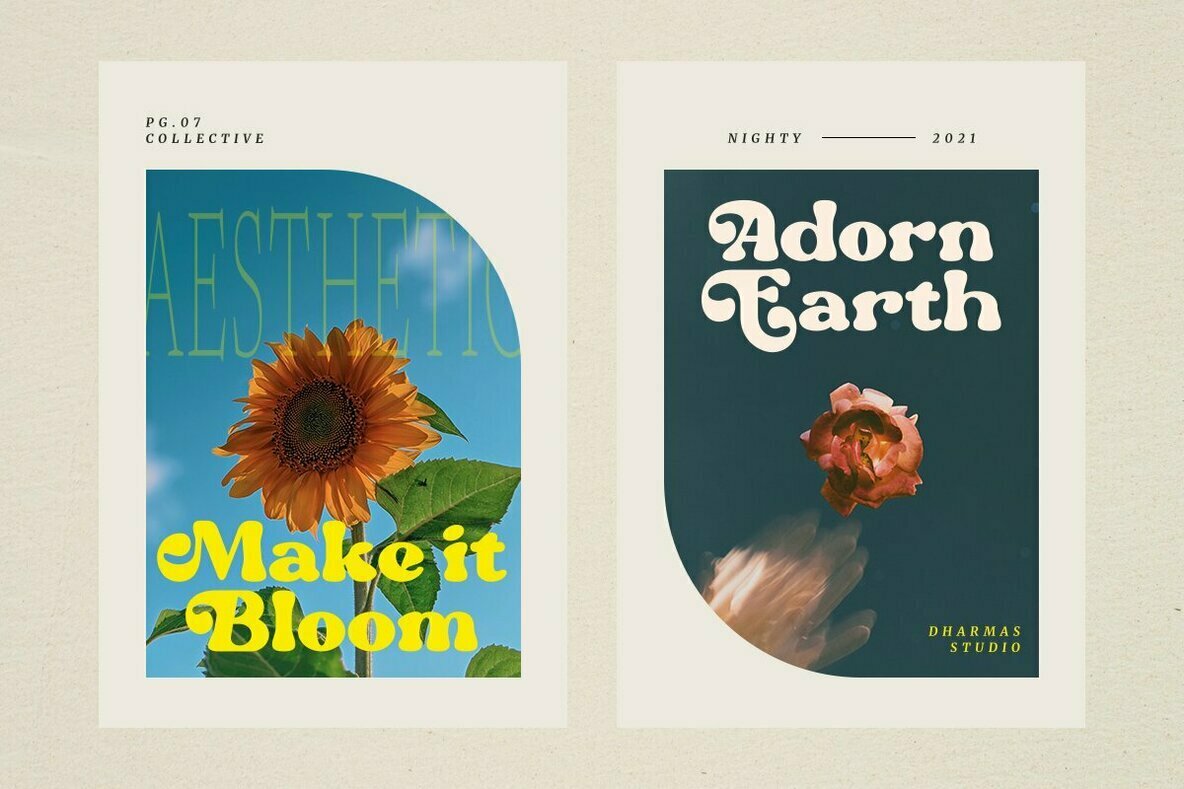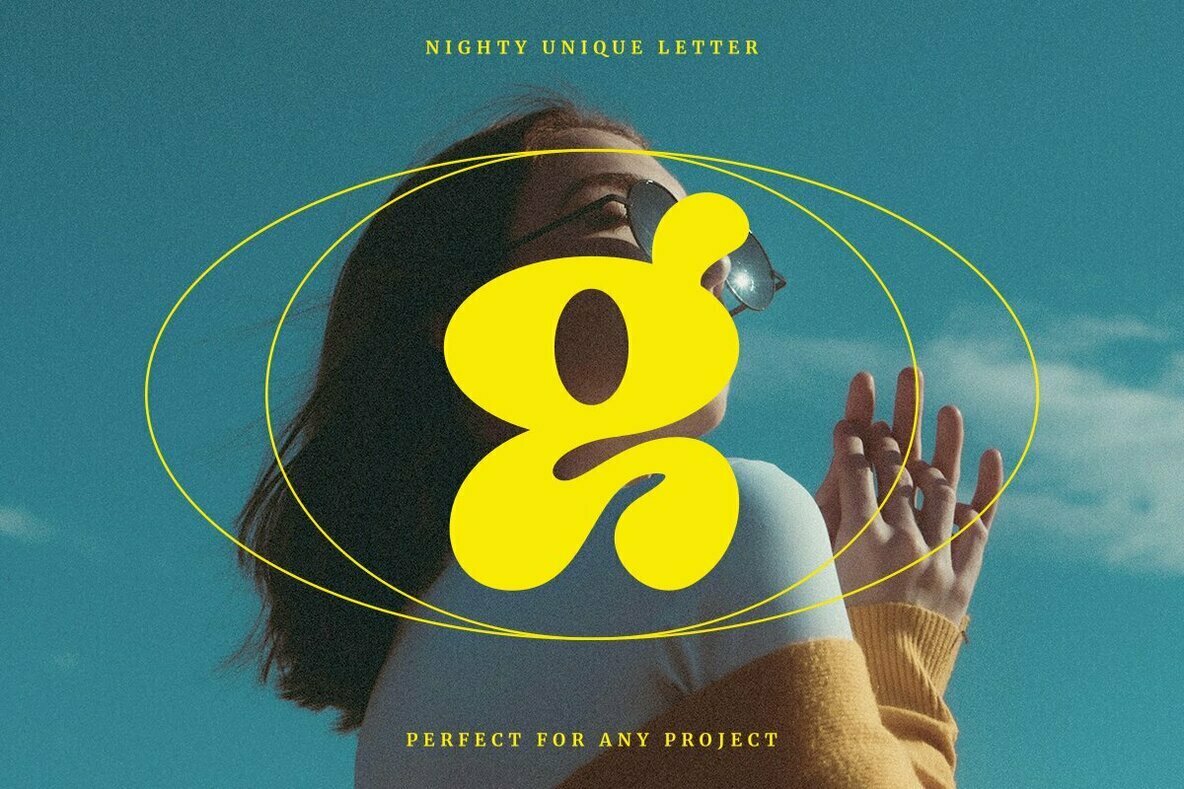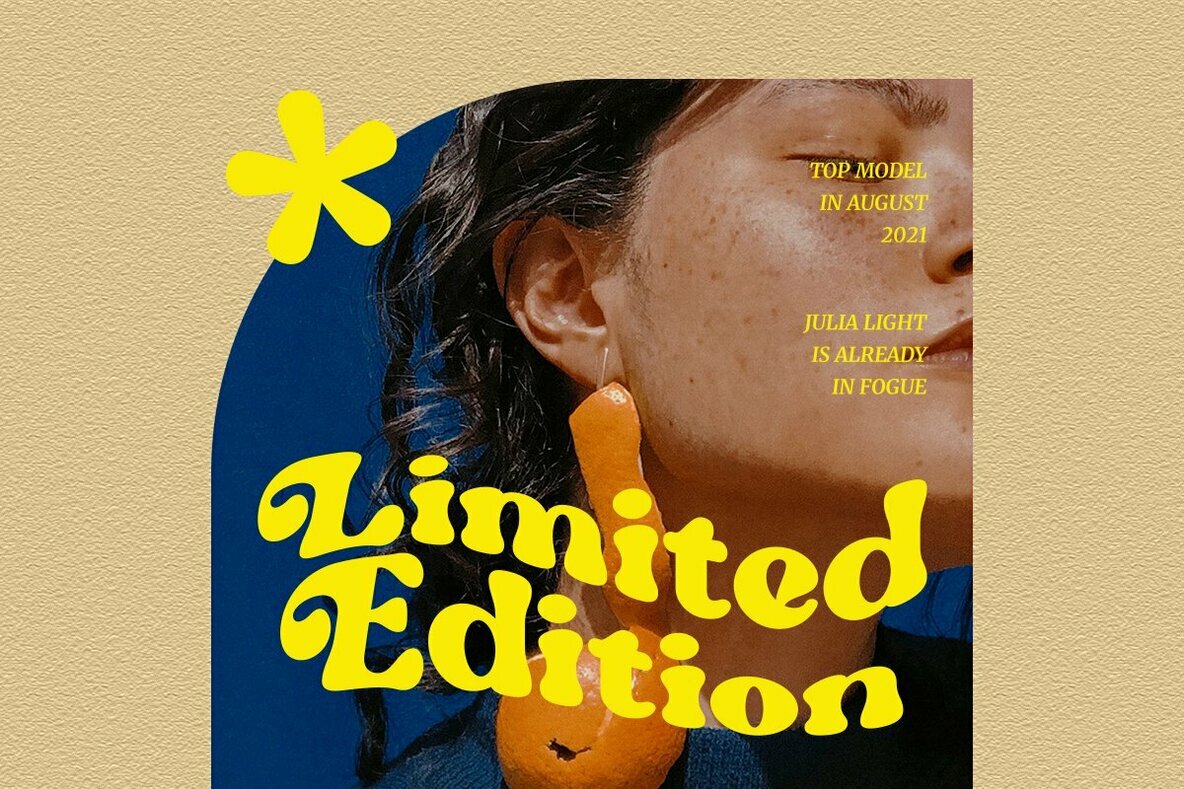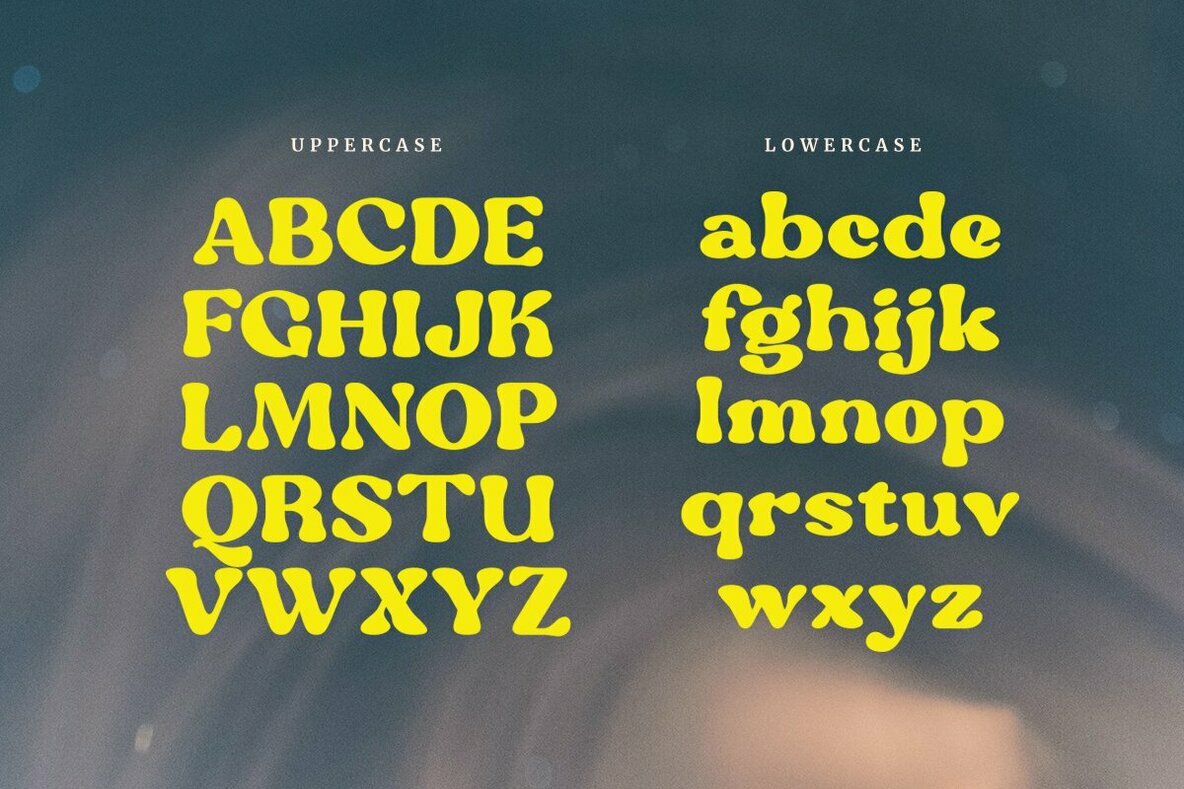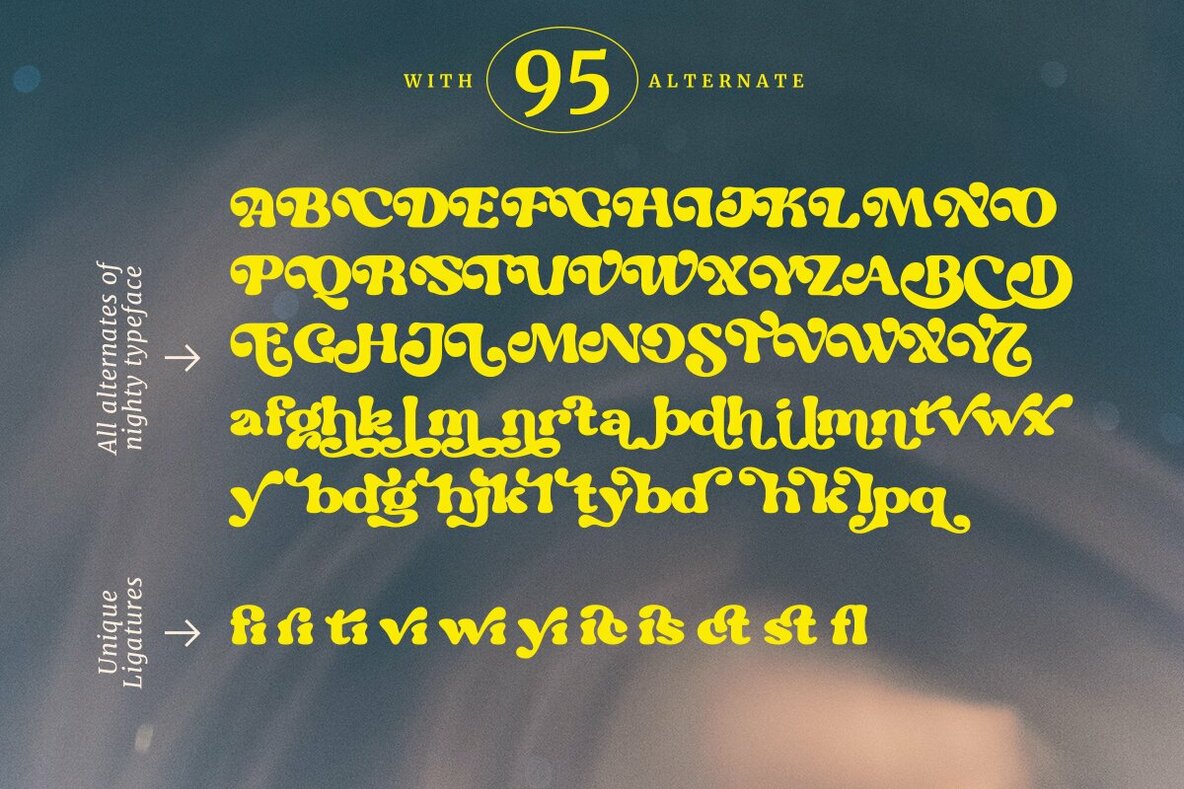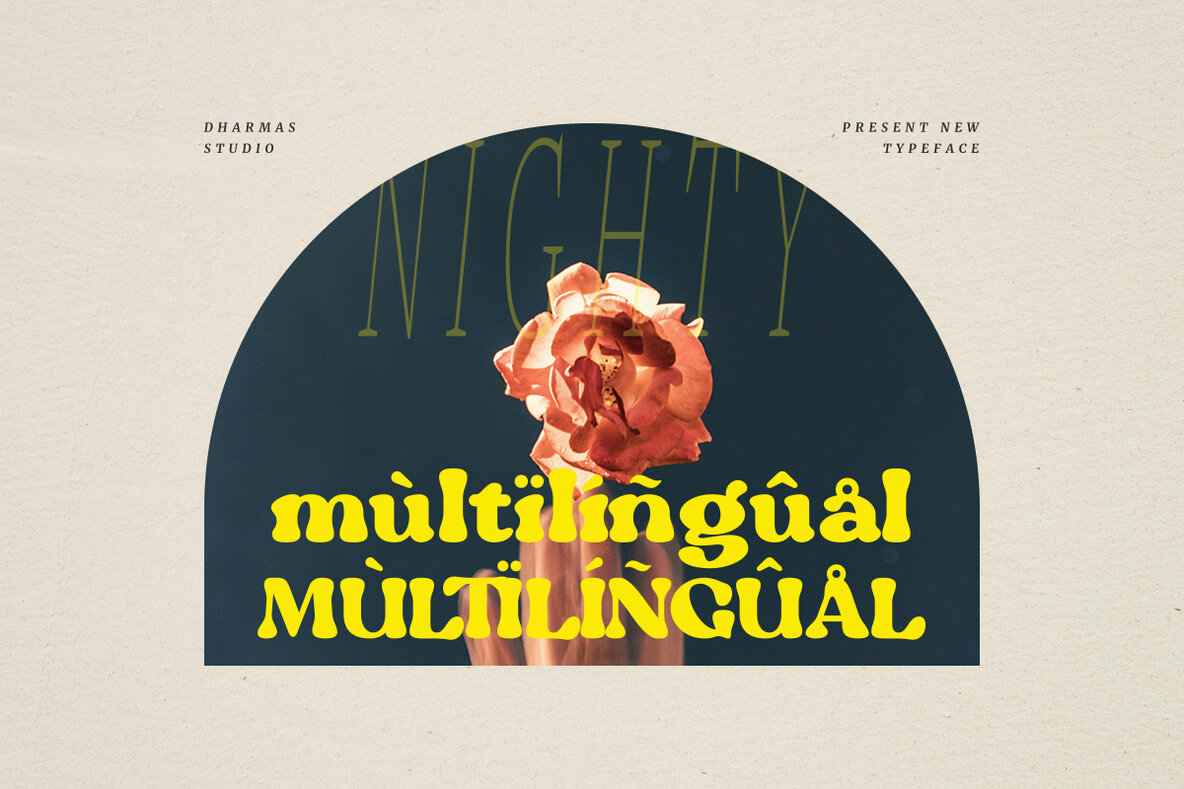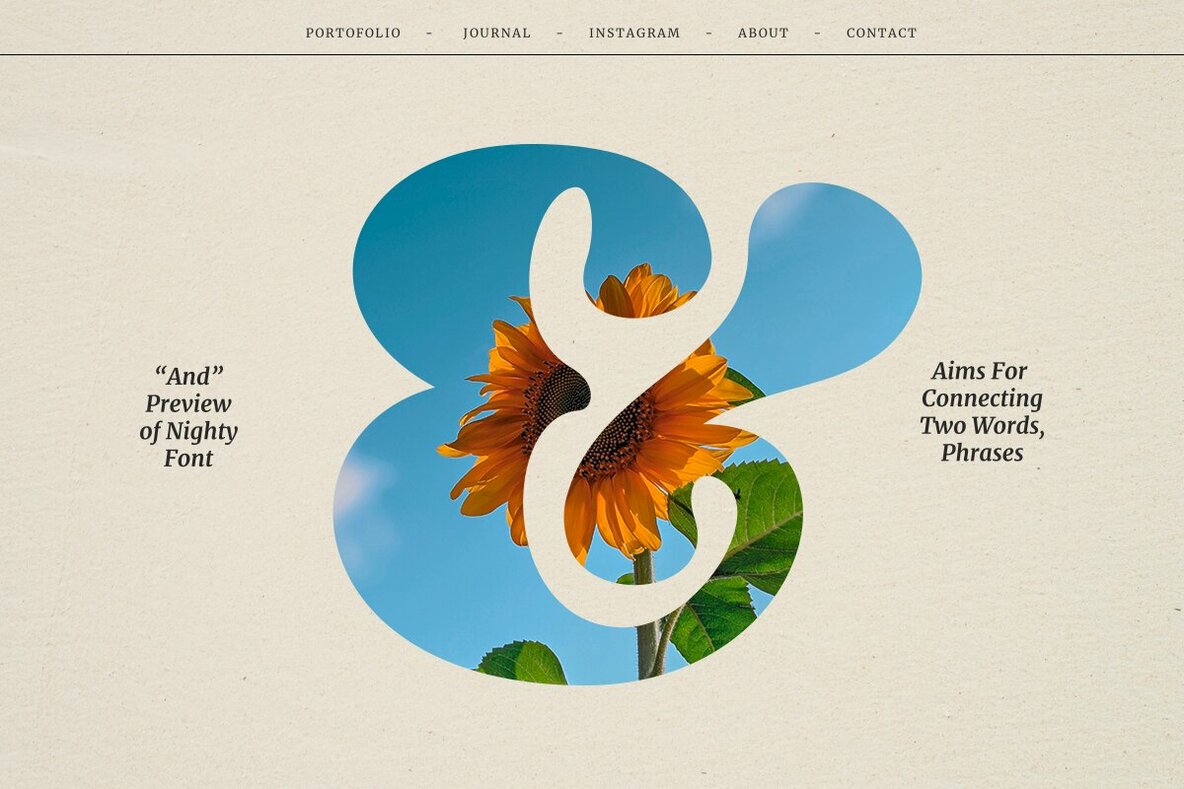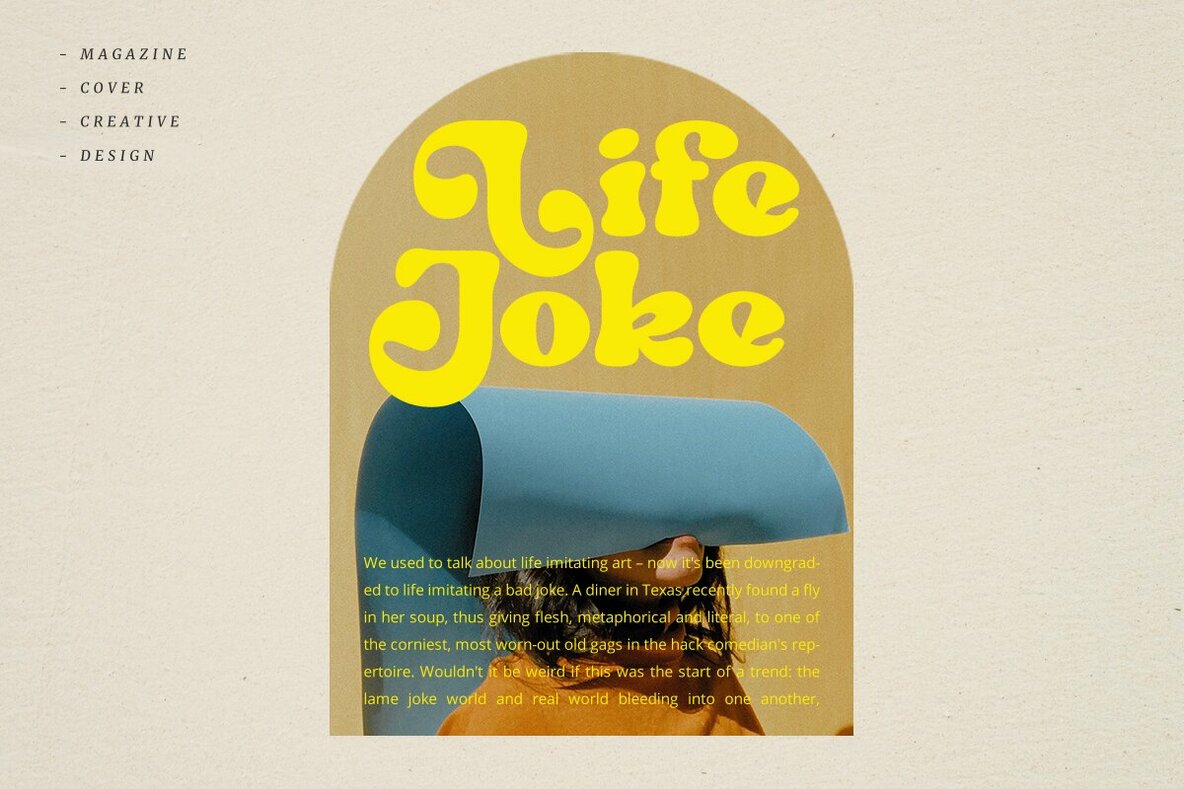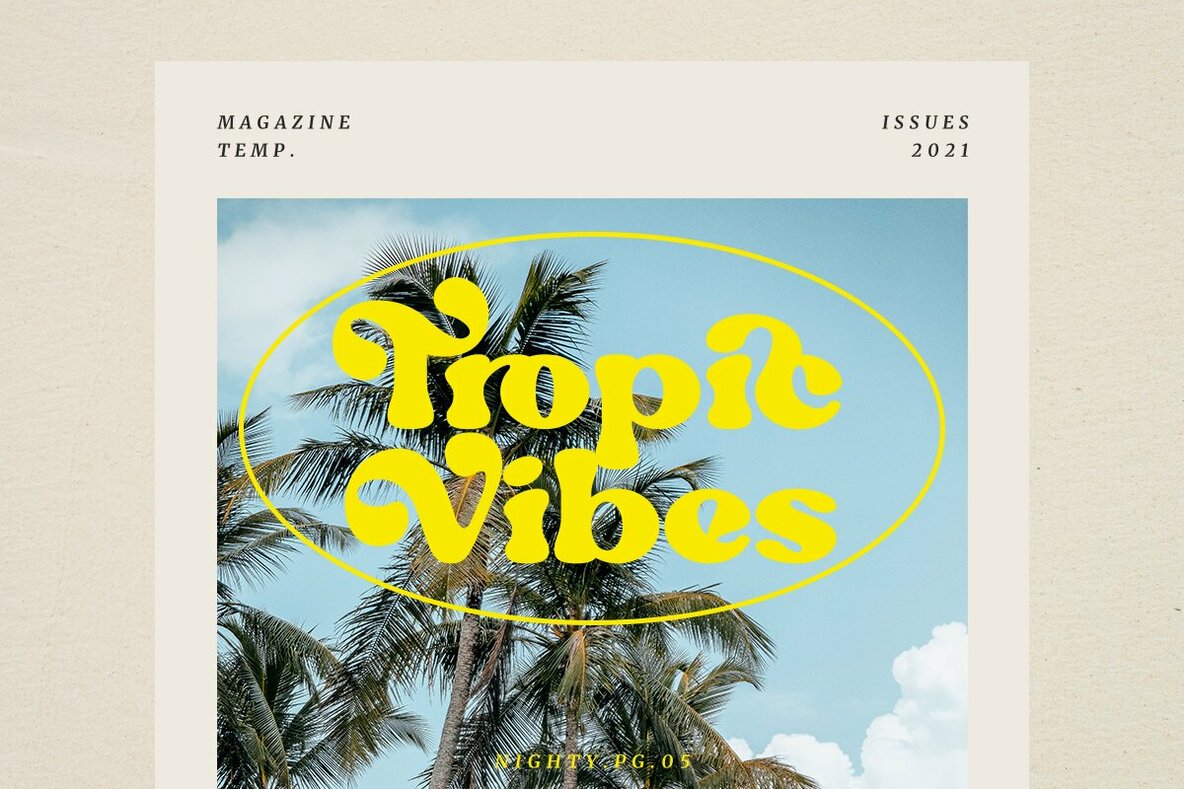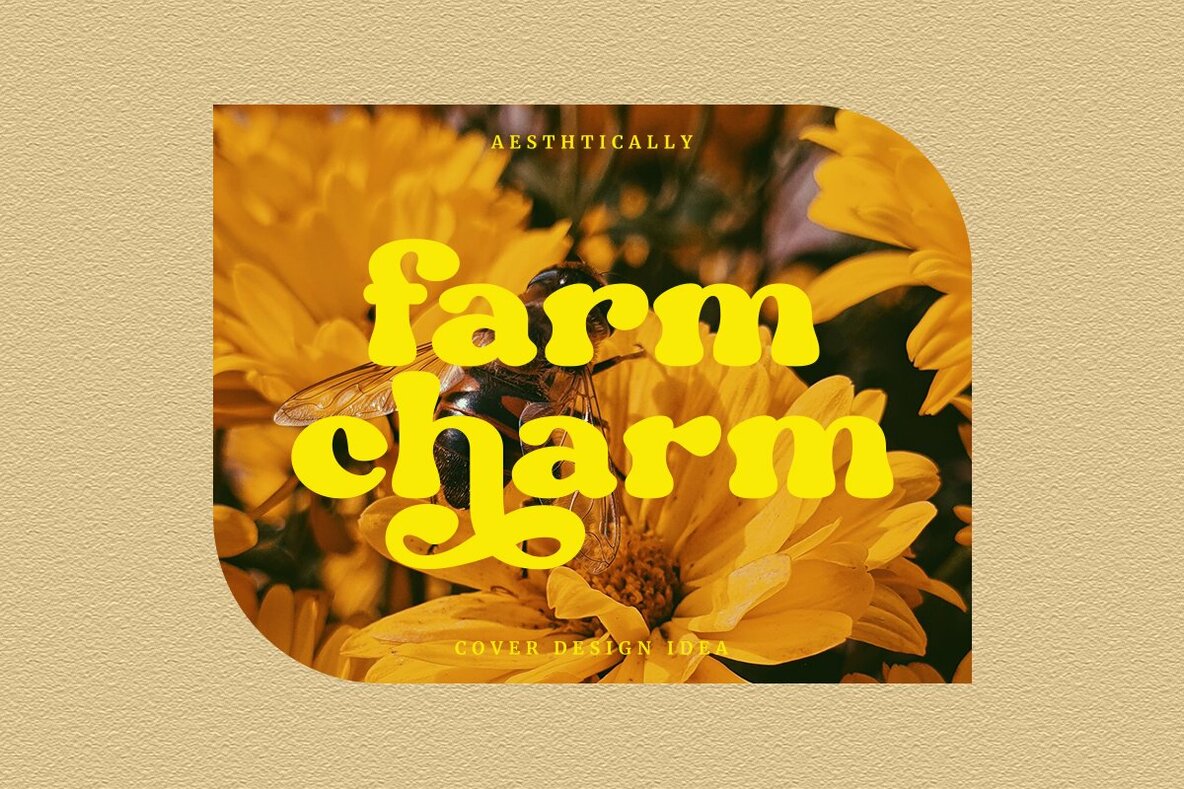
Nighty Font
Nighty
Nighty captures the essence of the ‘70s, infusing projects with a dose of groovy retro charm. This unique typeface from Dharmas Studio provides a nostalgic flair, perfect for moodboards and vintage logos, while offering versatility in its application. Features:Nighty: A Nostalgic Display Typeface
Embrace Nighty for your next project and revel in a timeless design that speaks to a bygone era.